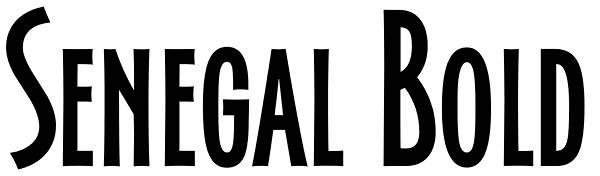
Senegal
A Large and Small cap design great for Headlines Sub heads and even works great in text. A unique look. Allows you to fit a lot of copy in a small space.